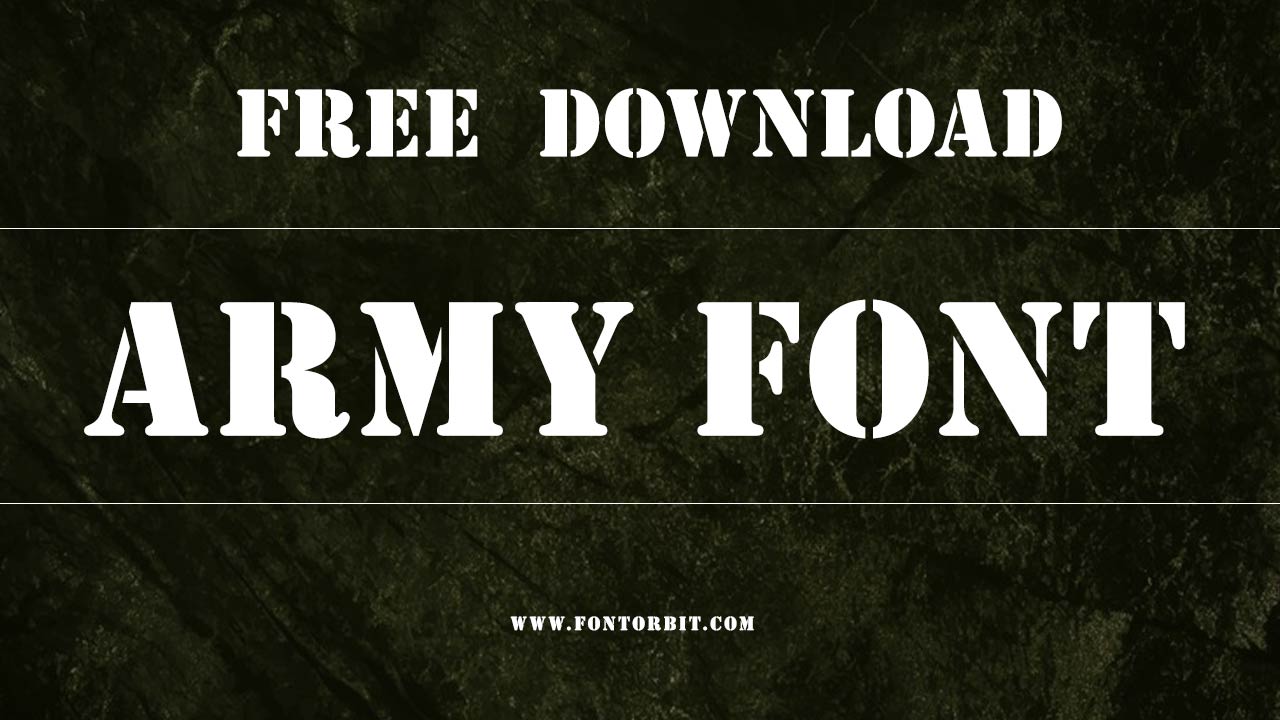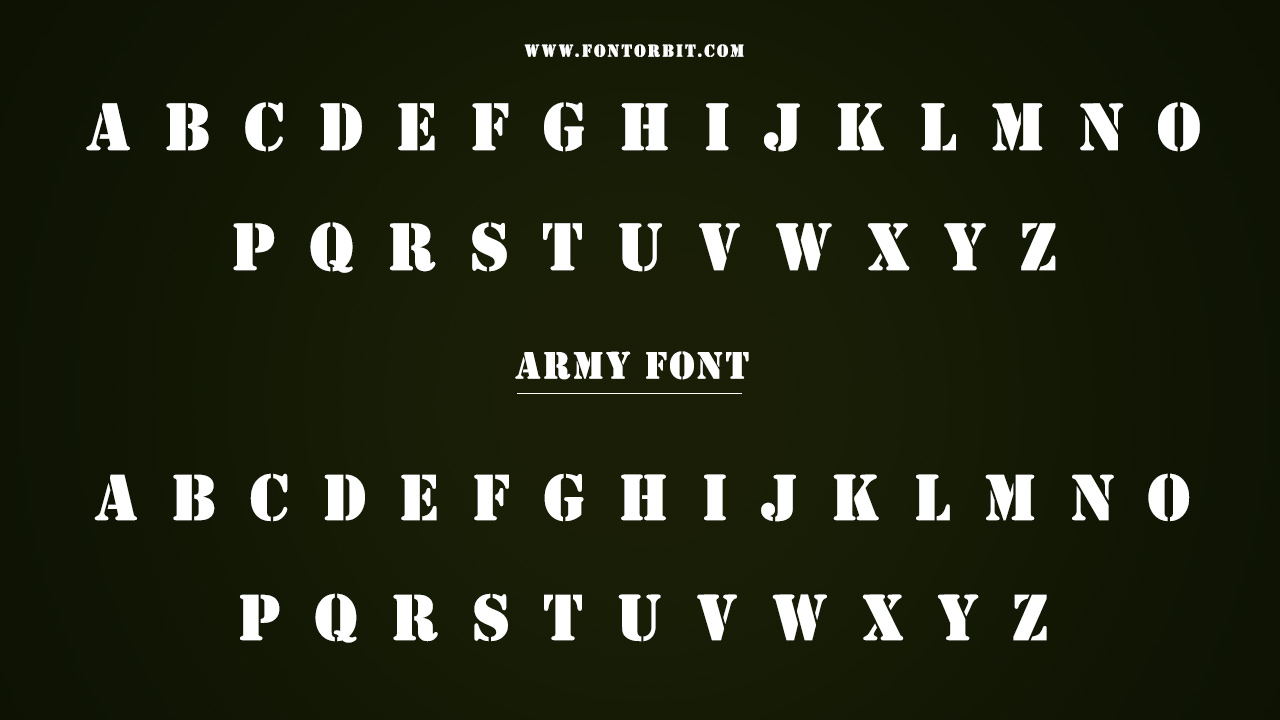
Army Font is a bold military-inspired Stencil Font designed for designers who want to create impactful and authoritative designs. This Military Font is perfect for projects requiring strength and ruggedness, which is a nod to vintage military styles. Its clean and strong appearance makes it ideal for everything from Army Posters to Logo Designs. Whether you’re designing for branding, apparel, or digital content, the Army Stencil Font brings an edgy, utilitarian vibe to any project.
Best Uses
Army Font works perfectly for:
- Military-themed branding and logos
- Army posters and advertisements
- Apparel and merchandise design
- Social media graphics
- Sports or adventure event posters
- Military style lettering
- Display Fonts for bold headings and titles
Army Font is a standout Stencil Font that offers a military style perfect for designs that communicate power, resilience, and ruggedness. Its bold and impactful look makes it ideal for various creative projects, including logos, military-themed designs, posters, and more. The free demo version is available for personal use, while the commercial license unlocks all its potential for professional projects.
Whether you’re designing Army Posters, apparel, or military design work, Army Font ensures that your designs stand out with authority and strength. Pair it with modern fonts like Montserrat for a balanced, polished look or keep it all about the bold, rugged military aesthetic.
4. What Is The Inspiration Behind Army Font?
Army Font is rooted in military stencil typography, inspired by the bold, utilitarian lettering used on military equipment, vehicles, and official correspondence. This stencil font exudes authority and ruggedness, making it ideal for projects related to army, air force, and union force themes. It’s a perfect choice for military style fonts and army posters, capturing the essence of discipline and strength.
5.What Makes Army Font Different From Other Military Fonts?
The Army Font stands out with its clean and utilitarian design and a vintage military stencil font aesthetic. Unlike other military style fonts, it maintains a modern military font edge while preserving the timeless stencil feel that is both versatile and impactful. Whether used for army lettering, display fonts, or retro fonts, its distinctive look is well-suited for high-impact army posters, book covers, or official military themes.